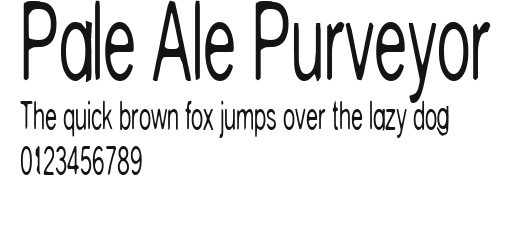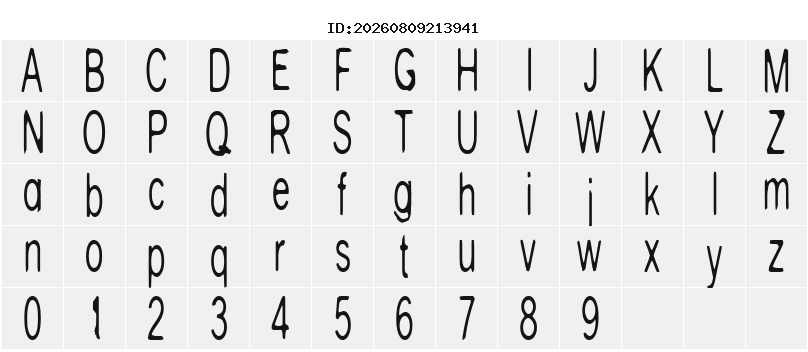
• Font Name: Pale Ale Purveyor
Pale Ale Purveyor.ttf is a modern, elegant sans-serif font designed for ultimate readability and visual harmony. Perfect for branding, headlines, web design, and print materials.